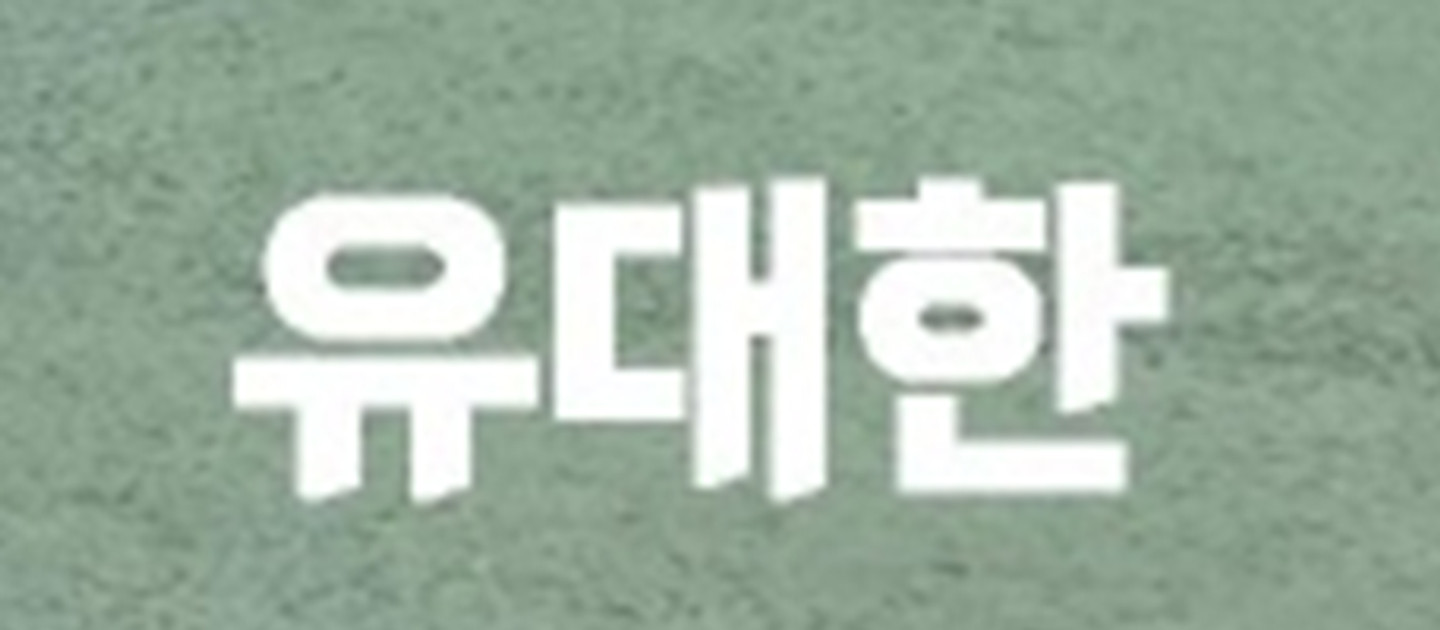
더잠실체
Daeojamjil
Created by LOTTE Shopping
Type Gothic
## The Jamsil Font
### Font Introduction
The young and newly changed Lotte Mart ‘The Jamsil Font’
Lotte Mart announced its new vision, “Everyday New Store” in 2022, in order to break away from its existing aging brand image. To provide customers with a young and changed Lotte Mart experience, it developed a new font. The Jamsil Font is a new attempt that incorporates the Lotte Mart brand image and the historicity of the Jamsil area. It focuses on the fact that Lotte’s heritage is Jamsil, and the area name “Jamsil” was selected as the name of the font. The Jamsil Font is developed in Korean, English, Vietnamese and Indonesian, with the ultimate goal of making people feel the beauty of the Korean language overseas and introducing Jamsil as a representative region of Korea.
### Font Concept
“Jamsil” means “a room where silkworms are raised.”
Jamsil means “a room where silkworms are raised.” In the past, the Jamsil area was a place where sericulture was encouraged.
Before designing the font, we pondered on how to show Lotte’s heritage “Jamsil” in a new way, and we decided to incorporate the “silkworm”, the old symbol of Jamsil.
### Formative Features
1. The silkworm's life cycle is captured.
The Jamsil Font is a font that well expresses the newly changed Lotte Mart by modernly interpreting and applying the silkworm’s life cycle, from when it raises its head to eat mulberry leaves, to the process of making cocoons, and finally to the process of extracting silk from cocoons.
* Cocoon
The “O” shape, which is the most important element that determines the impression of the Korean font, applies the round and elongated shape of the cocoon to express the heritage of Jamsil and Lotte Shopping’s solid foundation.
* Raw silk
The appearance of raw silk being drawn out without any distortion creates a sense of vibrancy and symbolizes Lotte Mart’s strict standards for producing the best results.
* Silkworm head
The characteristics of the “vowels” were inspired by Jamdoomajae (a brushwork technique that forms the basis of calligraphy), and the silkworm head shape is modernly expressed at the end of the stroke.
2. It is easy to read and see, from small to large characters.
3. It is available in six weights, making it convenient to use anywhere.